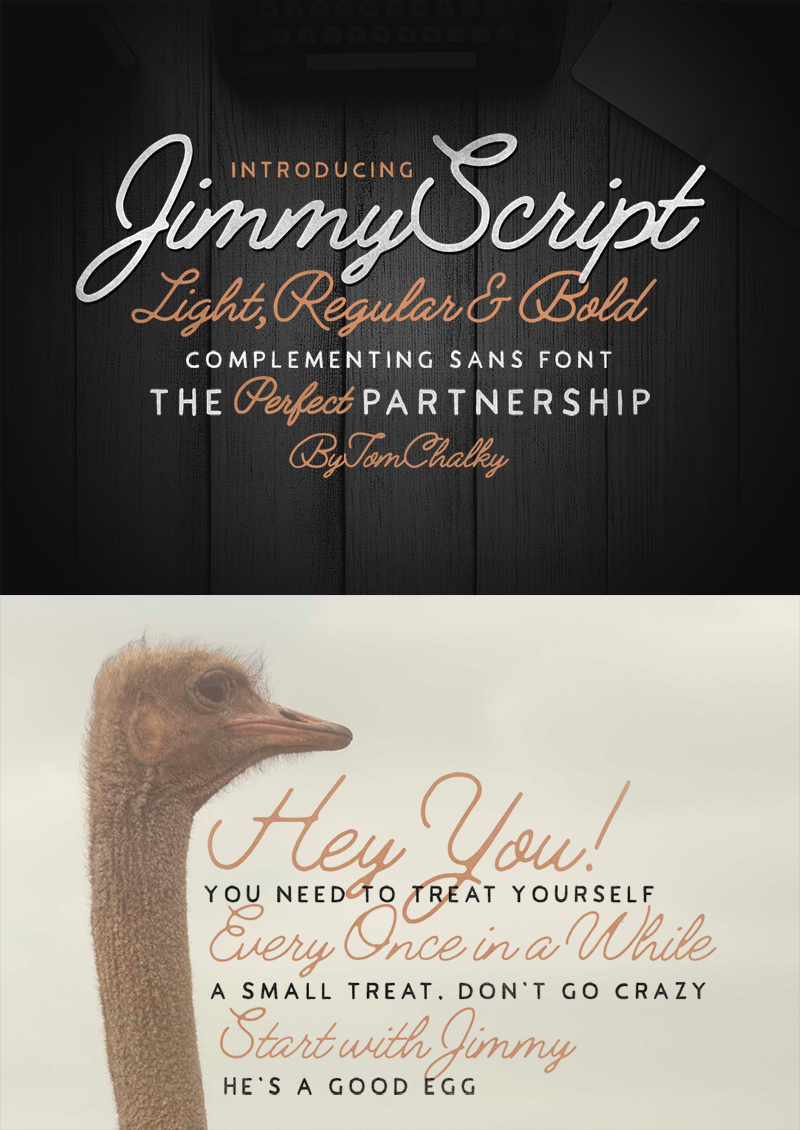
Font name: | Jimmy Script |
Author: | Tom Chalky |
Note by Tom Chalky | |
I’m pleased to share with you my Jimmy script font. Its design was inspired by the modern vintage trend that is sweeping the design industry. This font is free for personal use - a commercial license can be purchased here https://tomchalky.com/jimmy-script-font-duo/ (more weights, a complementary sans serif, and a bunch of extras are also included with the purchase) Any questions? Shoot me an email tom@tomchalky.com |